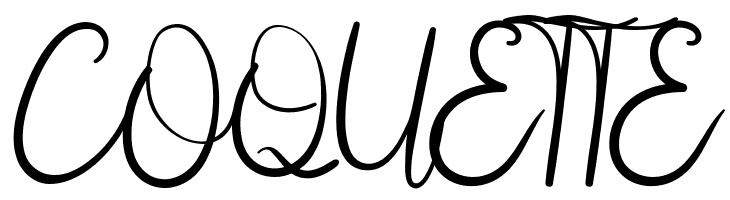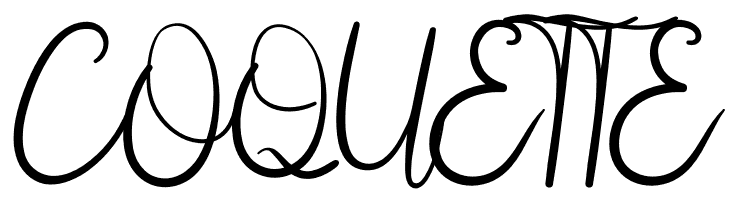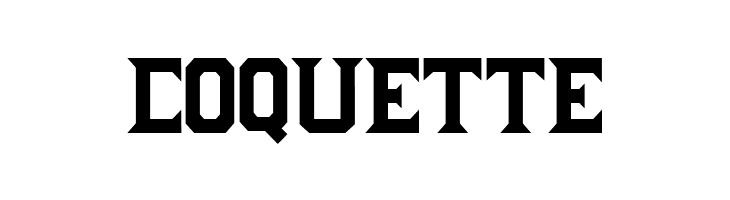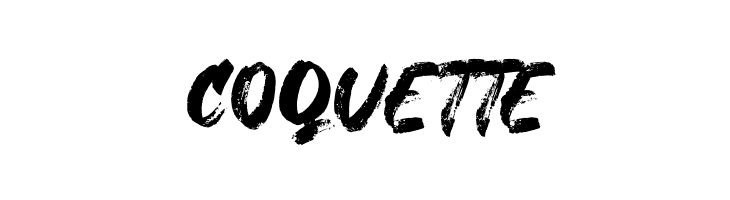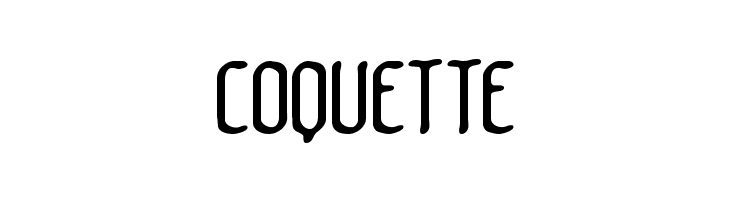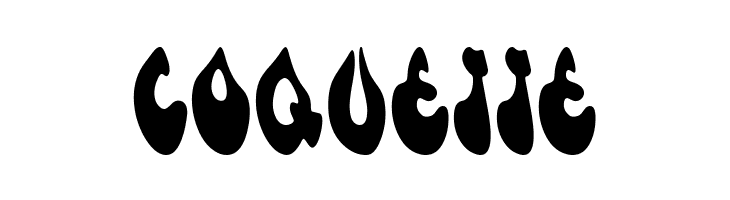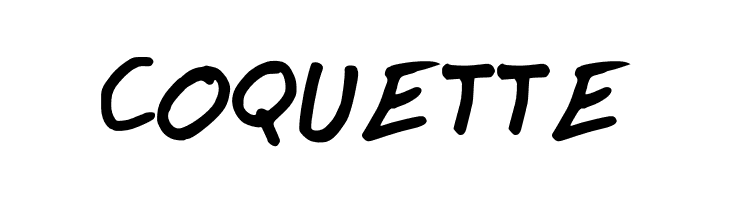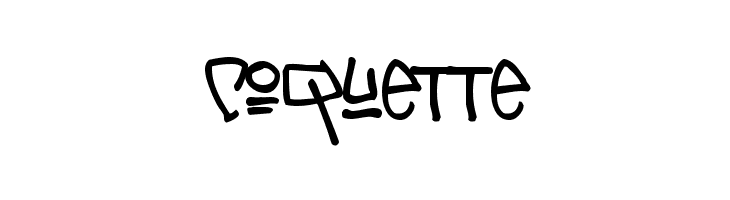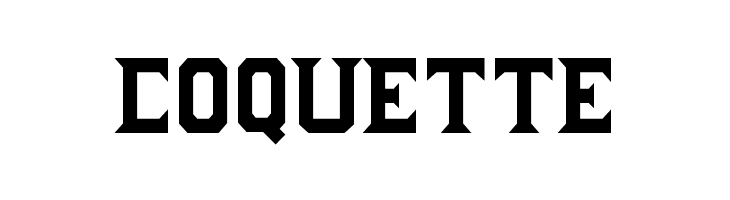
A playful, hand-drawn font with quirky, decorative letterforms.
A bold, playful font with organic, rounded shapes and exaggerated curves.
A bold, geometric font with a strong, industrial style.
A flowing, elegant cursive font with graceful loops and dynamic movement.
A modern, cursive script font with elegant loops and flourishes.
A bold, expressive brush-style font with a hand-painted look.
A bold, angular font with a geometric and modern style.
A bold, expressive brush-style font with a hand-painted appearance.
A playful, rounded font with smooth lines and a modern, approachable style.